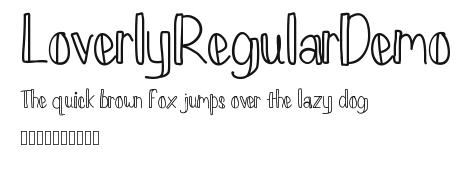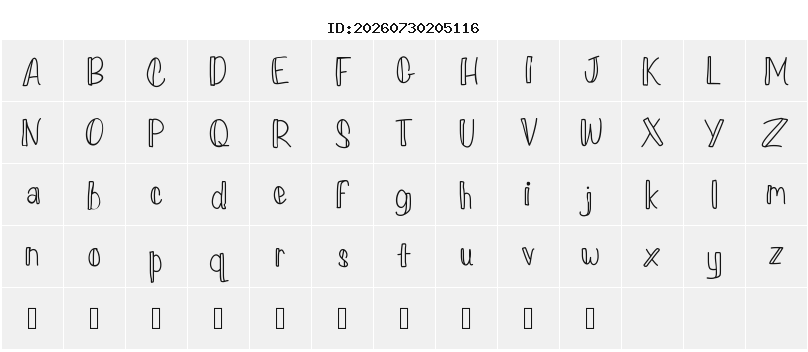
LoverlyRegularDemo Preview
• Font Name: LoverlyRegularDemo
• Font Style: RegularDemo
• Font ID: PaigeLyon:LoverlyRegularDemo
• Full Font Name: LoverlyRegularDemo
• PostScript Name: LoverlyRegularDemo
• Character Count: 53
About LoverlyRegularDemo.ttf
LoverlyRegularDemo.ttf is a modern, elegant sans-serif font designed for ultimate readability and visual harmony. Perfect for branding, headlines, web design, and print materials.